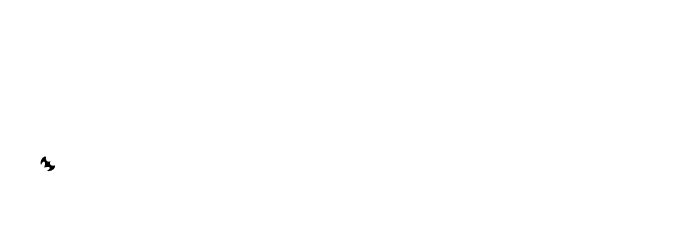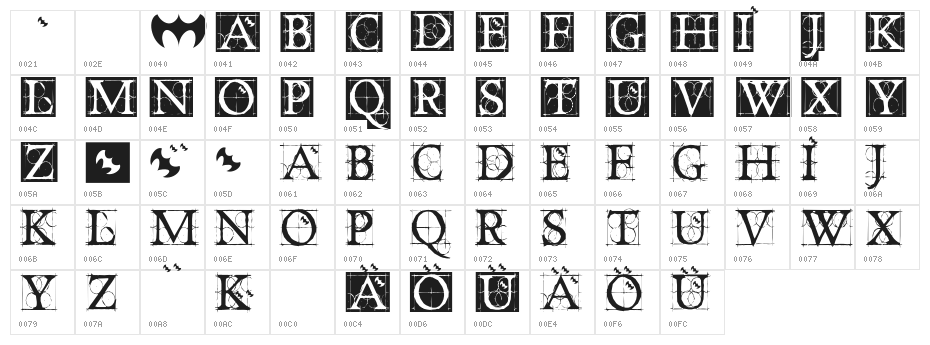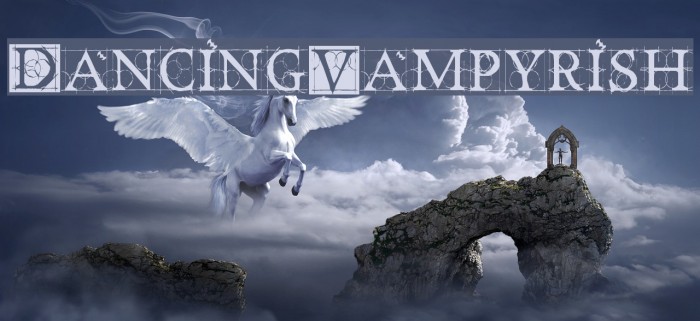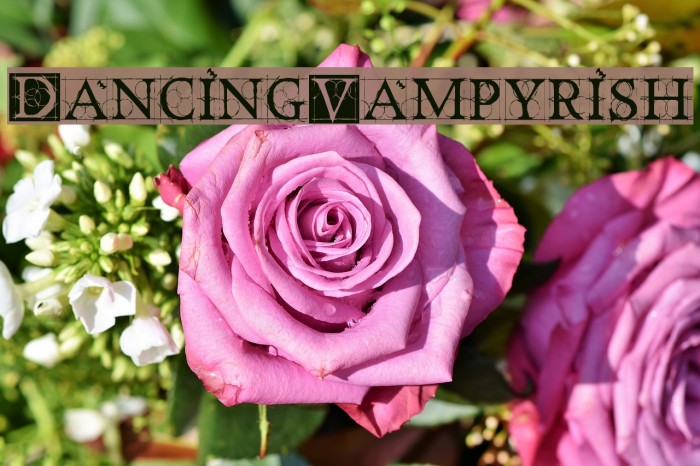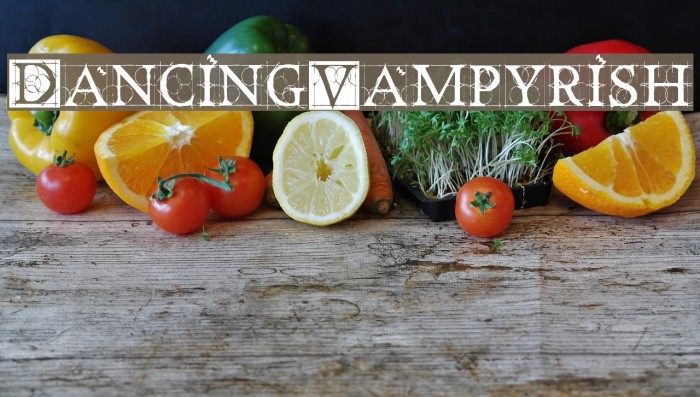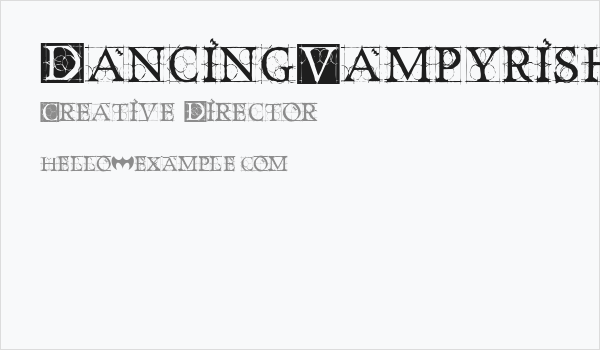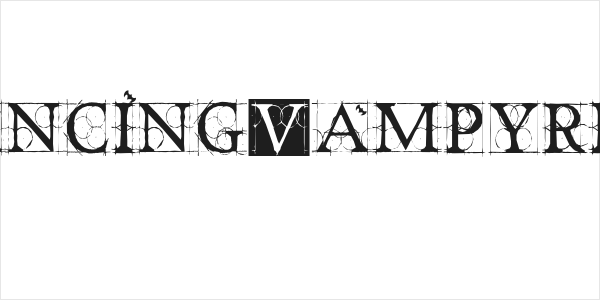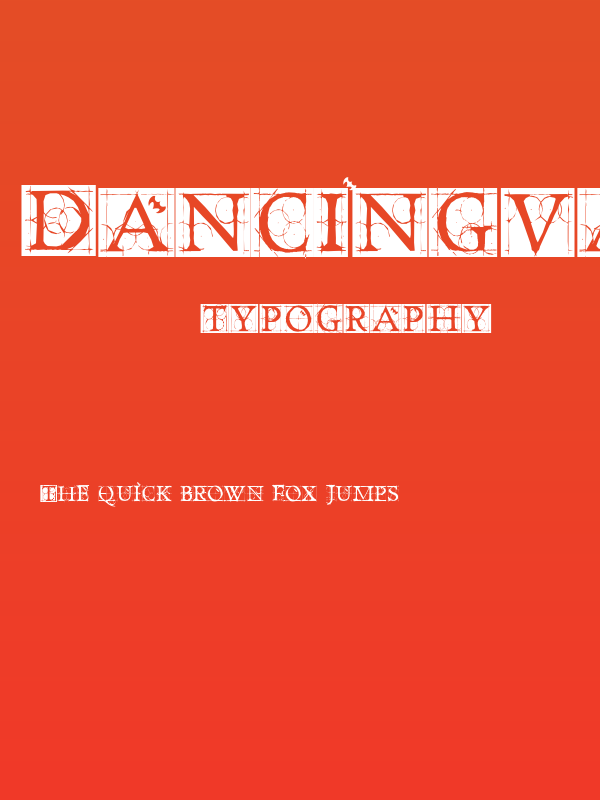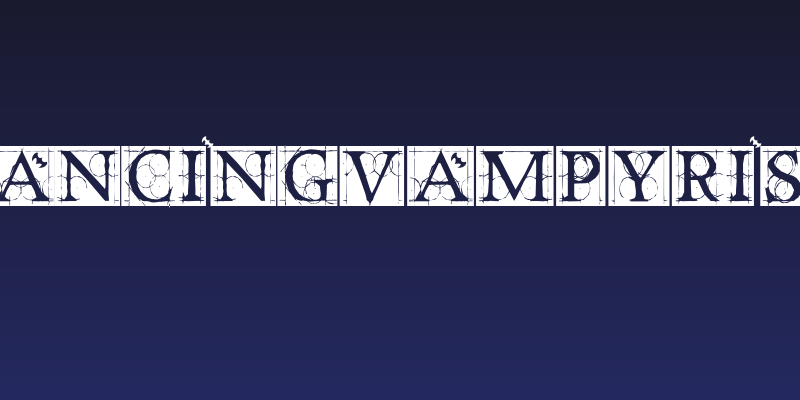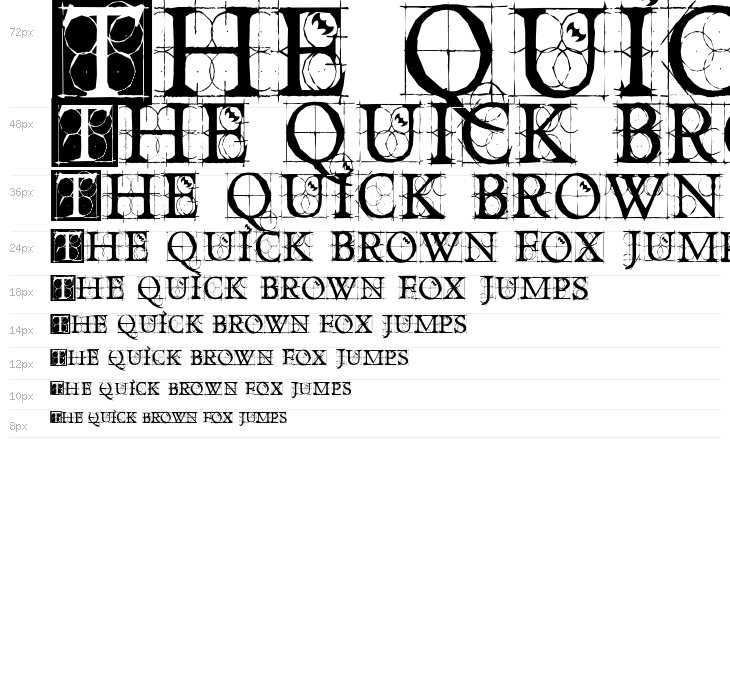
DancingVampyrish Font
DancingVampyrish Description
This font features an intricate and decorative style, characterized by its elaborate and ornate design elements. The letters are enclosed within a grid-like structure, giving them a structured yet artistic appearance. The font combines sharp angles with delicate curves, creating a unique contrast that is both eye-catching and sophisticated. The use of negative space and detailed embellishments adds to its complexity, making it ideal for projects that require a touch of elegance and creativity. The overall design is reminiscent of gothic or medieval influences, with a modern twist that makes it suitable for contemporary applications.
| Proposed Projects | Ideal for use in branding, invitations, posters, and any project requiring a sophisticated and artistic touch. |